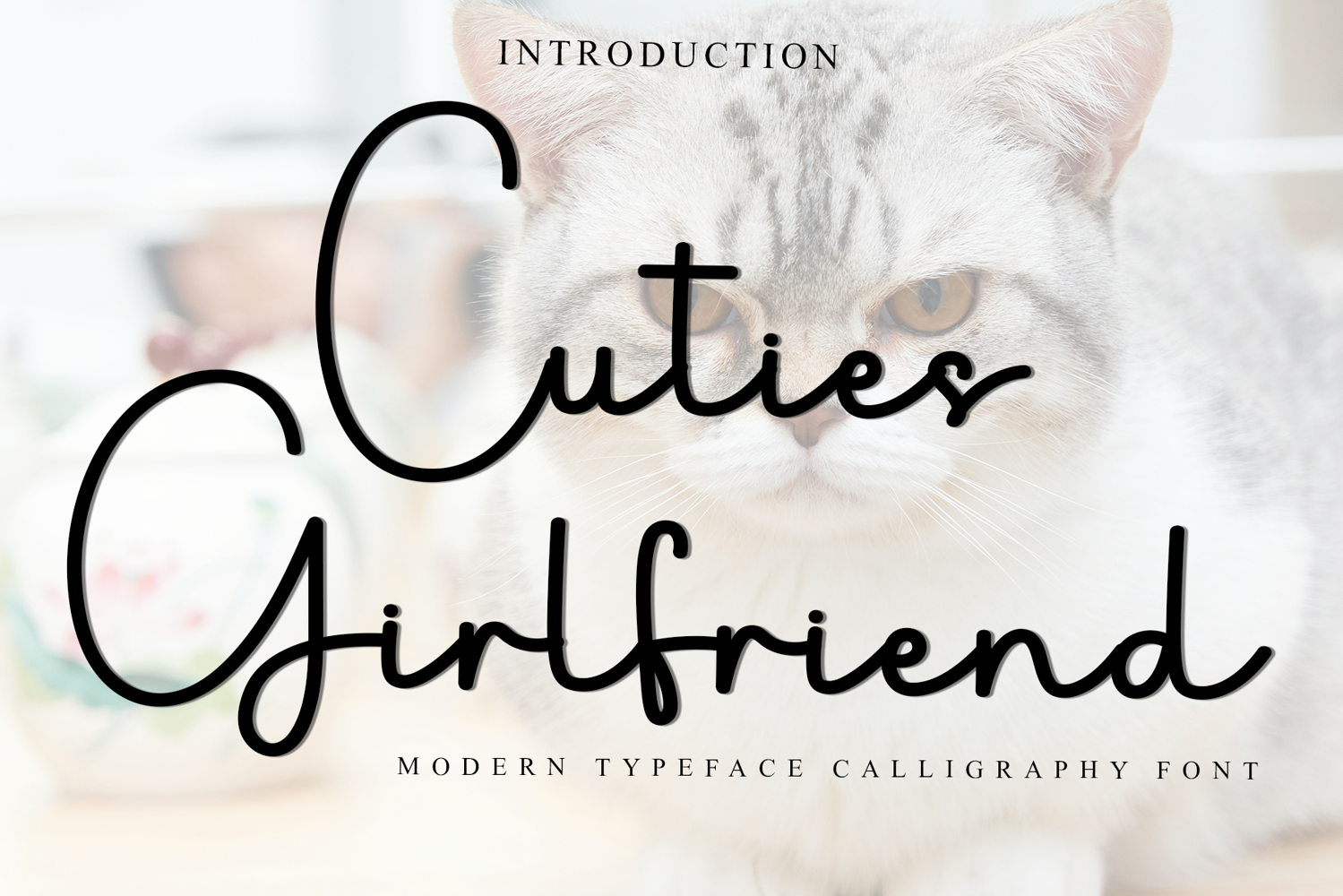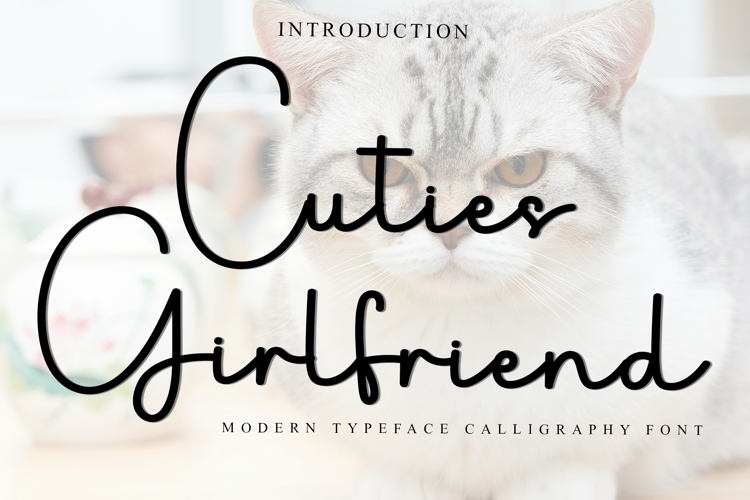
Cuties Girlfriend
Cuties Girlfriend is a beautiful and eye-catching font designed with a soft, unique touch. Its distinctive strokes give it a special character, making it meaningful and versatile for future use. With various characters, it’s perfect for design projects, crafts, and other creative works.